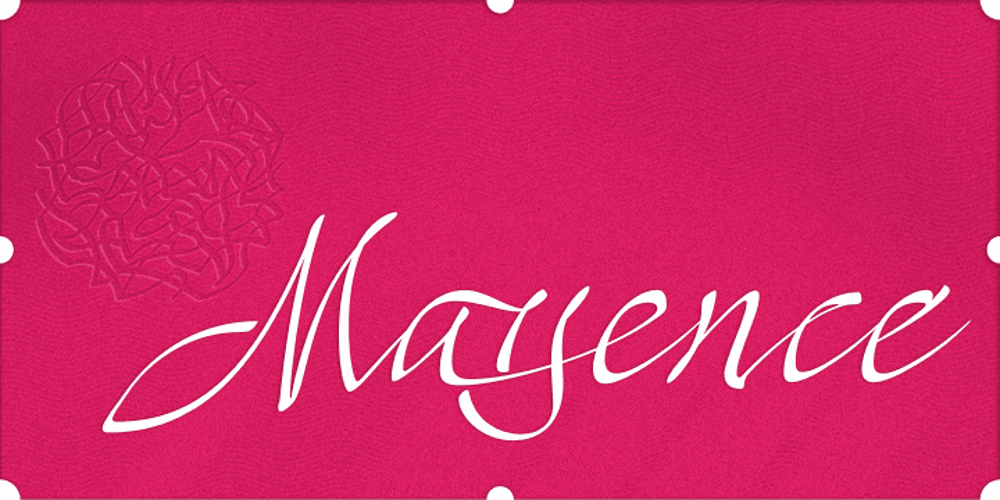
Mayence Font Family was designed by Isac Rodrigues and published by Isaco Type. Mayence contains 5 styles and family package options. Mayence is the French name of Mainz, German city where Johannes Gutenberg was born. It’s a manuscript font inspired in the author’s calligraphy, with an angular structure, marked by a certain impulsiveness. Besides being a continuous-line font, Mayence explores some deviations and imperfections in the calligraphy practice, as accumulations of paint and anomalies in the thickness variation, characteristics which gives it more naturality. Its main difference is the set of over 430 ligatures (Premium version), based on the research and selection of important character sequences, rather frequent in several languages. For this, a study was done about the diphthongs, triphthongs and di-tri-tetra-pentagraphs more common in languages such as English, Spanish, French, German, Italian, Portuguese, Dutch, Hungarian, Croatian, among others. Ligatures with up to 2 characters are enabled by default and with more than 2 characters are enabled by the Discretionary Ligatures option. Mayence also contains several ligatures based on common words in English and Spanish, exclusive ligatures with numbers and another standard, discretionary, historic and Unicode ligatures. It has 9 different ampersands (&), which can be chosen by the user according to the application context. When you enable the Titling Alternates (in OpenType-savvy programs), these 9 ampersand styles are converted to their forms of seal, with different purposes of use. To enrich your graphic applications, Mayence brings the Ornaments Version, for construction of impressive lines, borders, textures and the geometric shapes that you want, according to your creativity! To see the features available in each version, open or download the User Guide pdf, in the Gallery section. All text fonts are available in OpenType PS format and have extended character set to support CE, Baltic, Turkish, as well as Western European languages and additional Celtic characters.